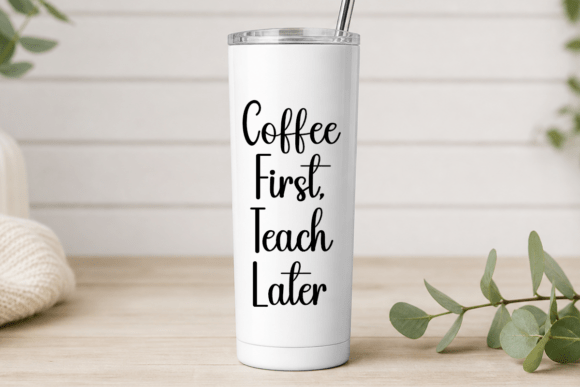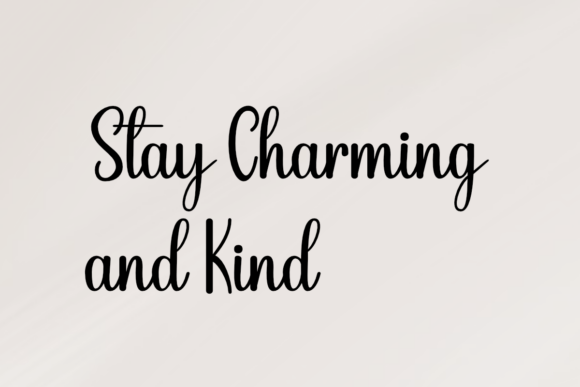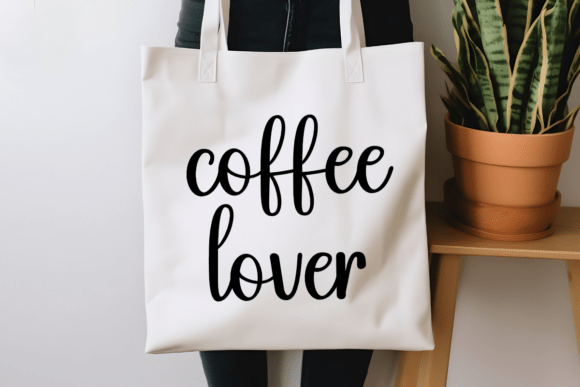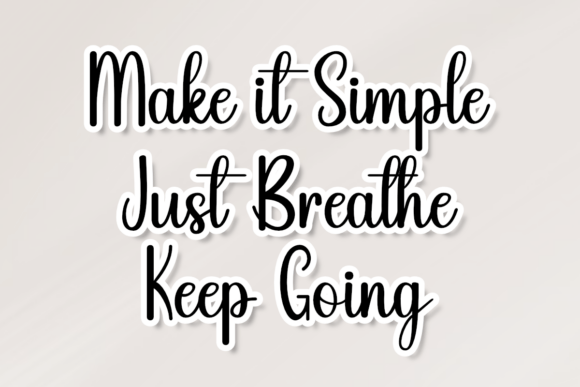
Discover the Magic of Handwritten Charm
Have you ever been in the midst of a creative project, staring blankly at a blank canvas or screen, waiting for that perfect spark to ignite your design? For many of us, it’s that moment when we stumble upon the perfect font that sets the tone for our entire project. For me, that moment came when I discovered the Charming Font – a clean and simple handwritten font that adds a touch of warmth and personality to any design.
This charming font is more than just a pretty face; it’s a versatile tool that can elevate your DIY crafts, Cricut projects, and even commercial designs. Whether you’re a seasoned designer or a crafting newbie, the Charming Font is an essential addition to your toolkit. Its ease of use and friendly touch make it perfect for a wide range of projects, from tumblers and mugs to stickers and quotes.
Key Features of Charming Font
- Font Size: 6 styles ranging from 12pt to 72pt
- Resolution: Supports high-resolution displays with precise typography at 72 dpi and 144 dpi
- Language Support: Multi-language support, including Latin, Cyrillic, and Greek alphabets
- Unique Characteristics: Elegant and refined design, ideal for formal and creative applications
- Kerning and Ligatures: Advanced kerning and ligature system for improved readability and aesthetics
Charming Font Review
I recently had the chance to work with the “Charming Font” and I must say, it’s a unique and interesting addition to any design project. ✨ One of the things that really stands out about this font is its elegant, vintage feel. It’s perfect for creating a sophisticated and romantic atmosphere in your designs.
- ✨ Unique Character Variations: The “Charming Font” has a wide range of character variations, including swashes and flourishes, which add a touch of whimsy and personality to your text.
- ✨ High-Quality Renditions: The font renders beautifully at both small and large sizes, making it perfect for use in a variety of design contexts.
However, there are a few limitations to consider. ⚠️ The font is a bit on the ornate side, which can make it difficult to read at very small sizes. Additionally, the character set is not as extensive as some other fonts, which may limit its use in certain contexts.
Overall, I think the “Charming Font” is a great choice for designers looking to add a touch of elegance and sophistication to their projects. While it may not be suitable for all design contexts, it’s a unique and versatile font that can add a lot of personality to your work.
Getting the Most Out of Charming Font
Some tips for getting the most out of Charming Font include:
- Experiment with different font sizes and styles to achieve the desired effect.
- Combine Charming Font with other design elements, such as images or graphics, to create a visually appealing design.
- Use Charming Font to add a touch of elegance and sophistication to your designs.
Some common use cases for Charming Font include:
- Book covers and publishing materials.
- Special occasion announcements and greetings.
Alternatives to Charming Font for Designers
Playfair Display is a high-end serif font ideal for luxury branding, magazine headings, and high-end packaging. It features elegant, intricate details and a vintage feel. Use it when you need to convey sophistication and refinement.
Compared to Charming Font, Playfair Display has a more dramatic and ornate feel, making it better suited for high-end branding and design projects.
Great Vibes is a modern script font perfect for adding a touch of elegance and sophistication to your designs. It’s ideal for wedding invitations, branding, and packaging. Use it when you need to convey a sense of romance and whimsy.
Compared to Charming Font, Great Vibes has a more fluid and cursive feel, making it better suited for designs that require a sense of movement and flair.
Carolyna Pro is a modern sans-serif font ideal for corporate branding, digital products, and advertising. It features clean lines, geometric shapes, and a sleek feel. Use it when you need to convey a sense of professionalism and modernity.